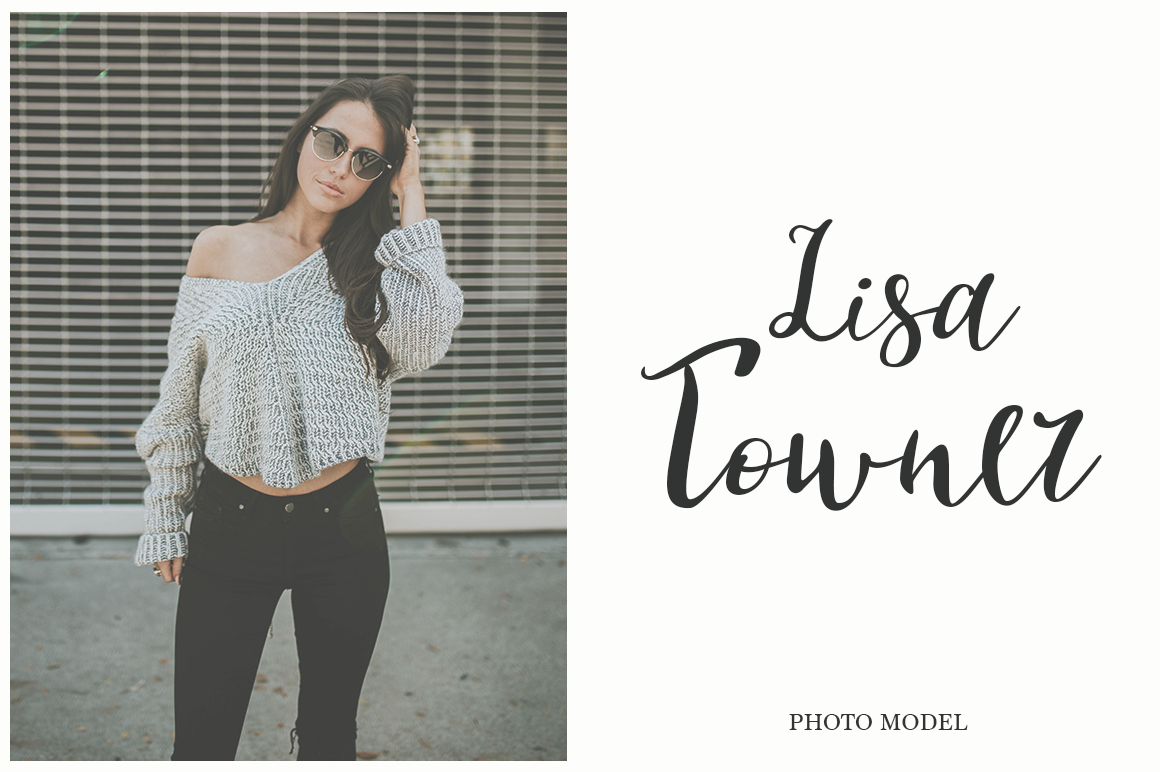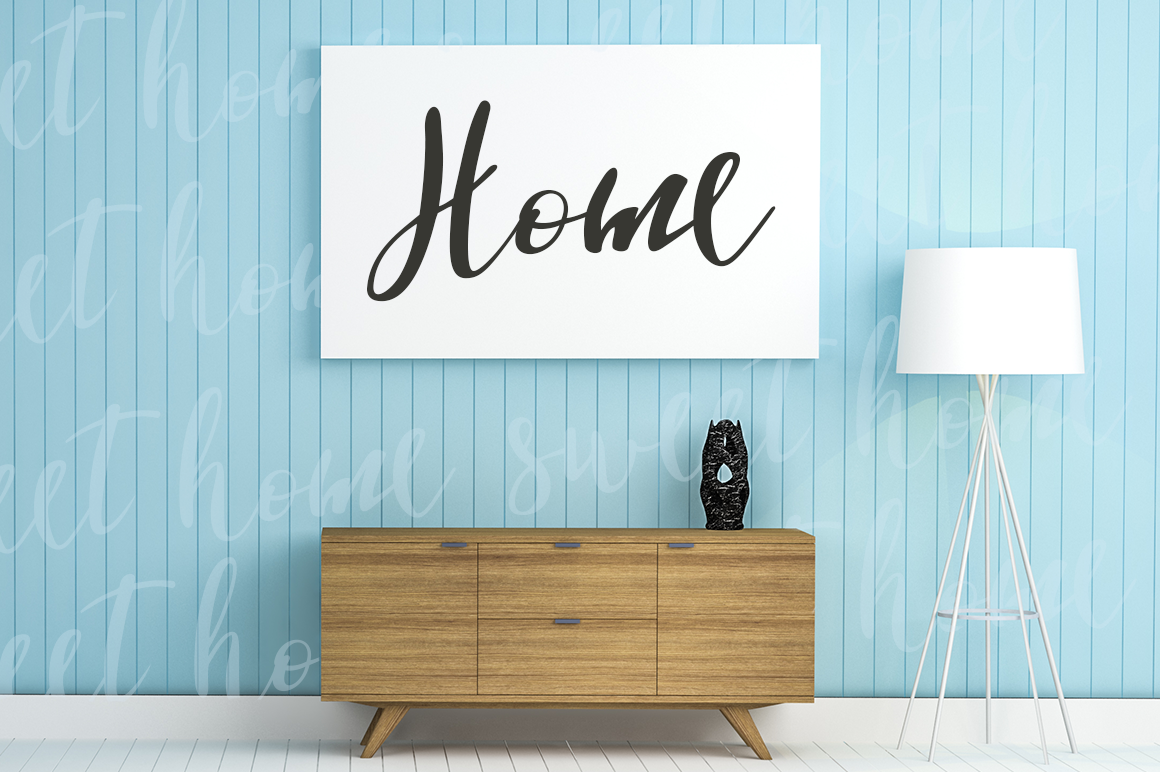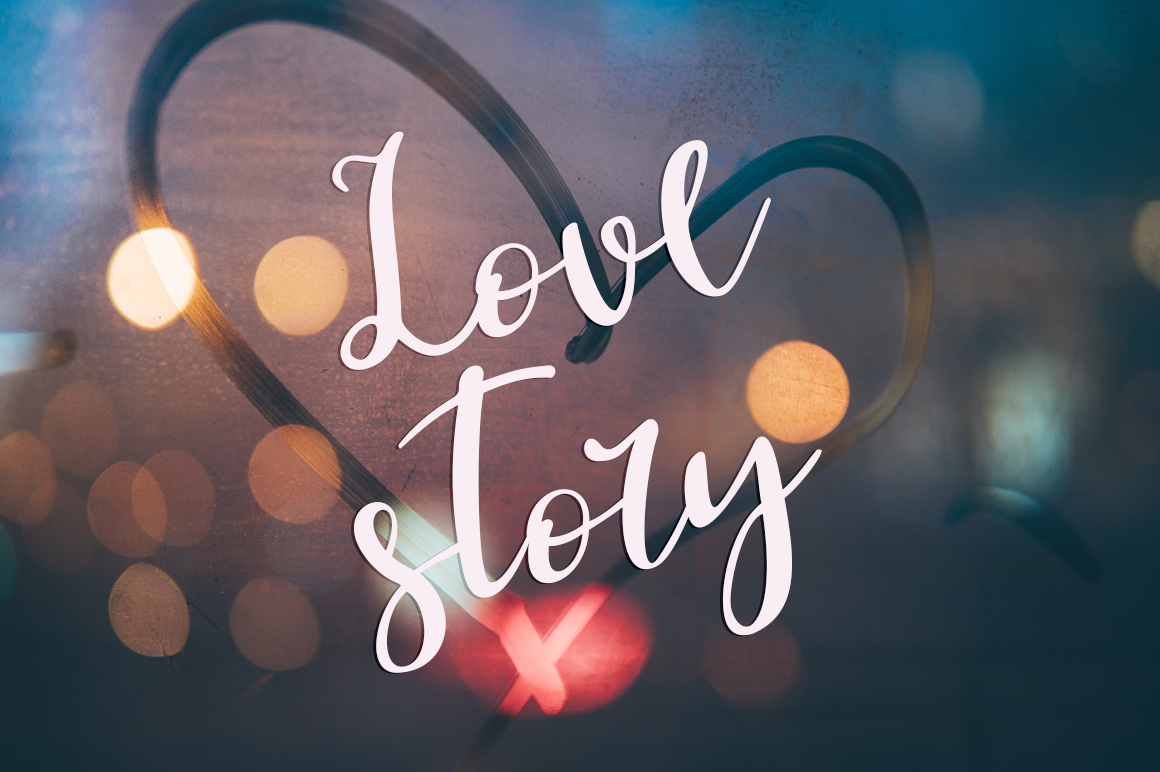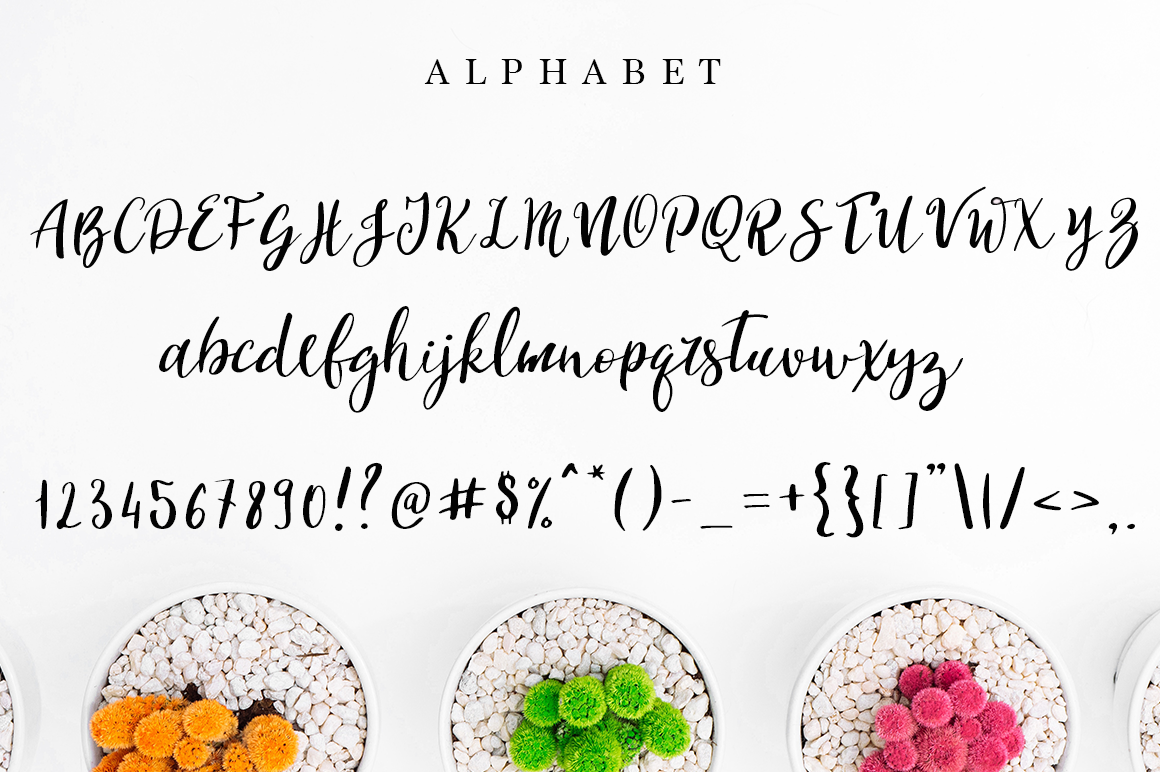
HomeScript FontsShowing Font Script Fonts Showing Font FacebookXPinterestWhatsApp Showing Font Poster 2 Showing Font Poster 3 Showing Font Poster 4 Showing Font Poster 5 About Showing Font Showing is a stunningly decorative script. It’s stylish and has a fresh, modern look. DOWNLOAD NOW People also explored Vegetables Font Quality Gemagus Font Dhellia Font Christmas Stephanie Font Albelia Script Font Sign Helmet Font Bandice Font 294 0 TagsShowing Font Previous articleAdora Queen FontNext articleMaulydia Font LEAVE A REPLY Cancel reply Comment: Please enter your comment! Name:* Please enter your name here Email:* You have entered an incorrect email address! Please enter your email address here Website: Save my name, email, and website in this browser for the next time I comment. Personal Use Free Dacquoise Personal Use Free Read more about this font Unlock Endless Creativity with the FREE September Clipart Huge Bundle (Valued at $700!) Personal Use Free Read more about this font Quick Count Personal Use Free Read more about this font Aelten Personal Use Free Read more about this font BLOG Modern Sans-Serif Fonts That Brands Love in 2025 In 2025, modern sans-serif fonts remain a top choice for brands looking to project clarity, professionalism, and... How to Cut Any Font on Cricut: Convert a Font to SVG (Free) Using Fonts in Digital Marketing: Tips to Strengthen Your Brand Identity Best Fonts for T-Shirt Design – Top 2025 Picks